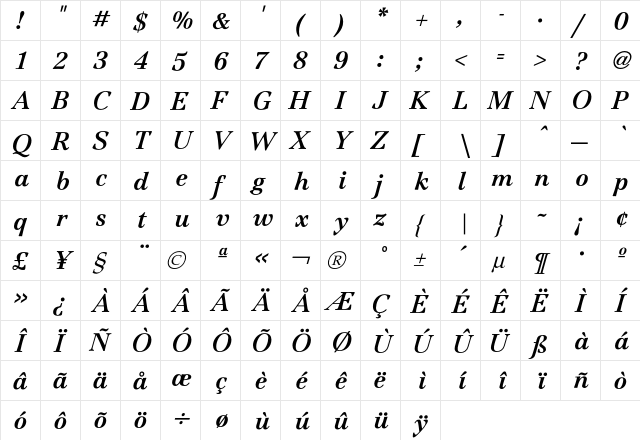
Jamille BoldItalic
Design Context for Jamille Typeface
Jamille is a composed and adaptable typeface that performs quietly and consistently across a wide range of design contexts. The slanted form adds forward momentum and visual energy. Its bold stroke weight gives it real presence on the page.
Pro Tip: Use Jamille for emphasis, pull quotes, and subheadings where its slanted energy can add rhythm to the layout.